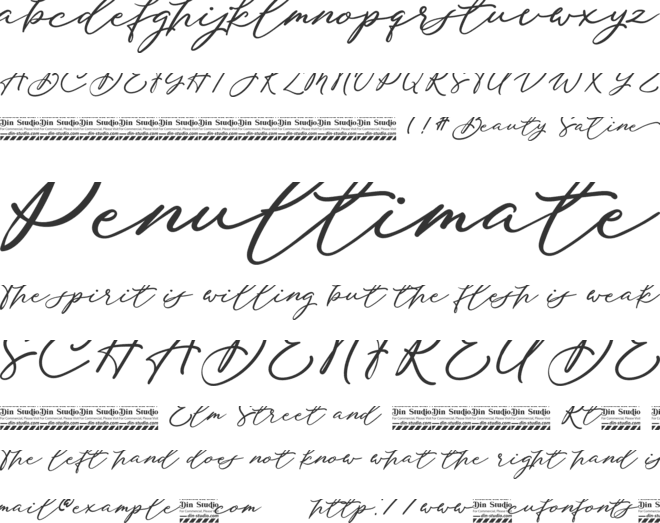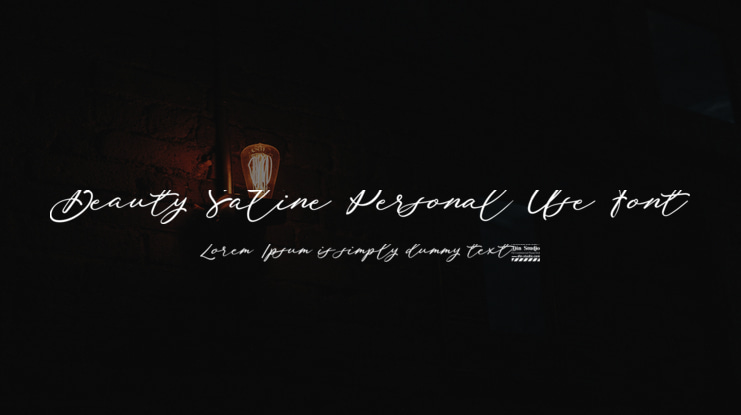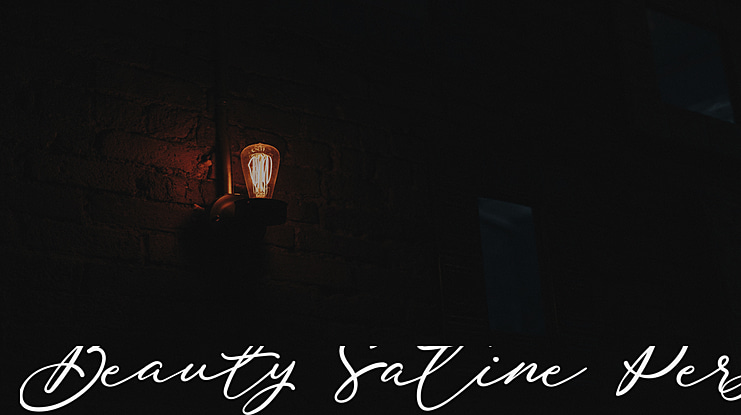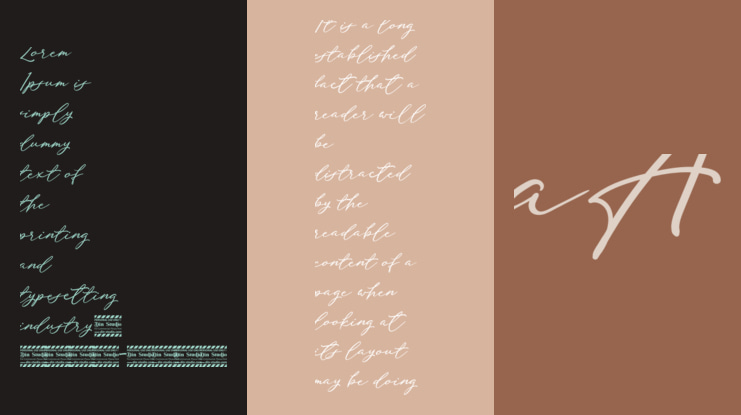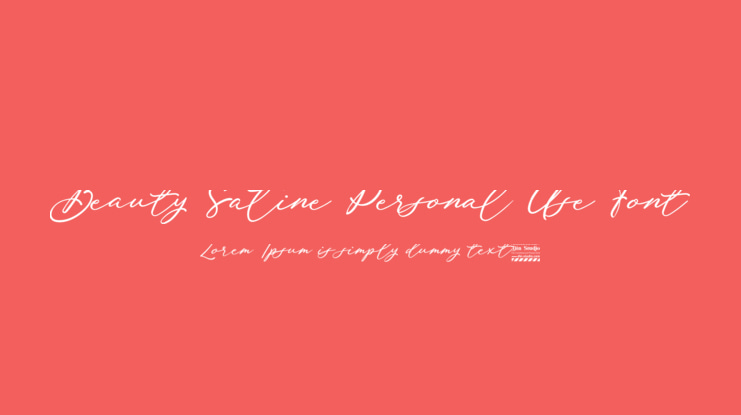
Introducing Beauty Satine-A Signature Font
Giving you a simple, yet gorgeous solution to your branding. This font is not only just a signature font. It encapsulates the essence of elegance and modernity. With its clean script-type design and curved indentations, this font will take your projects to the next level! Use it for headings, logos, business cards, printed quotes, invitations of all sorts, cards, packaging, and your website or social media branding.
Beauty Satine includes Multilingual Options to make your branding globally acceptable.